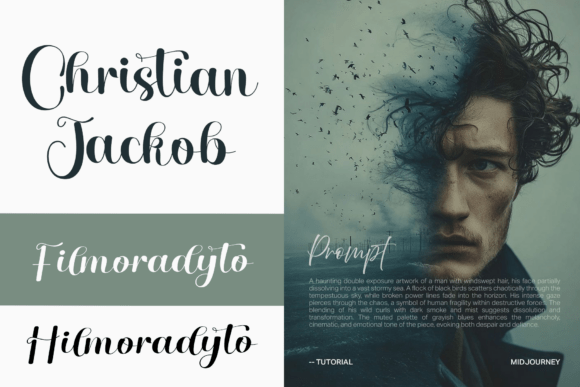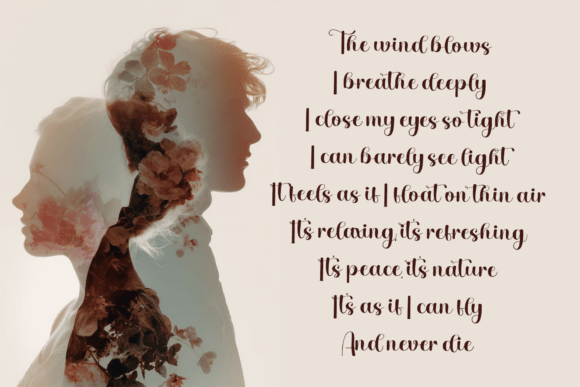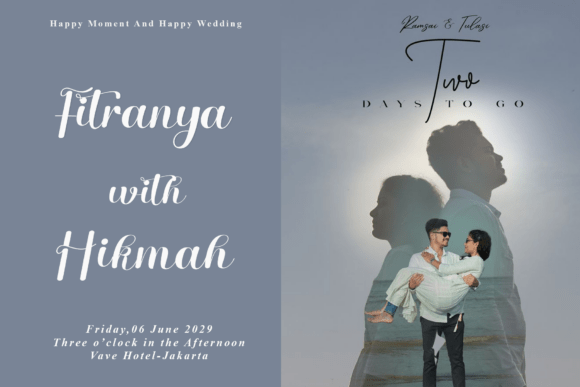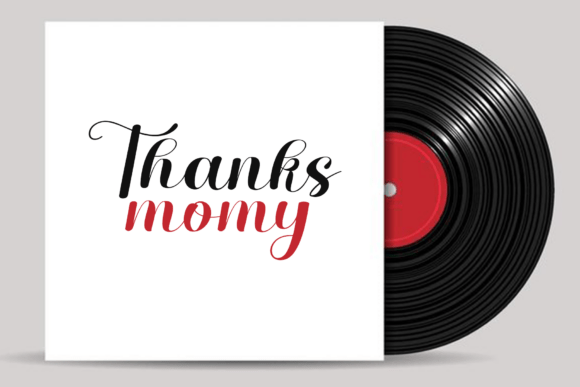
Introduction to Christmas Healing Font
As designers, we’ve all had those moments when we’re searching for the perfect font to elevate our creative project to the next level. Maybe it’s for a wedding invitation that screams luxury, or a branding project that demands sophistication. Whatever the case, finding the right font can be a game-changer. And that’s exactly what the Christmas Healing Font is – a true showstopper that adds a touch of opulent romance to any design.
Imagine wrapping your text in a flowing, calligraphy-style script that features dramatic swashes and a sophisticated rhythm. That’s what the Christmas Healing Font offers – a high-quality, elegant typeface that’s perfect for designs that require a sense of mystery and enchantment. Whether you’re working on a premium liquor label, a high-end wedding invitation, or a feminine branding project, this font is sure to impress.
Unlocking the Magic of Christmas Healing Font
Key Features of Christmas Healing Font
- High-quality design resource for your creative project, perfect for the holiday season.
- Unique and customizable font with a transparent background, allowing for easy integration into your design.
- Designed specifically for Christmas-themed projects, with a warm and festive tone that evokes feelings of healing and joy.
- Includes a range of ligatures and swashes to add a touch of elegance and sophistication to your design.
Honest Review: Christmas Healing Font
I recently stumbled upon the Christmas Healing Font, and I must say it’s a fantastic addition to any creative project. As a designer, I’m always on the lookout for unique and high-quality design resources, and this font delivers.
One of the standout features of this font is its versatility. It comes in a range of styles and weights, making it perfect for a variety of design projects, from greeting cards to social media graphics. The transparent background also makes it easy to customize and layer with other design elements.
Here are some things that work well about the Christmas Healing Font:
- ✨ High-quality design with a unique and festive feel
- ✨ Versatile and easy to customize
- ⚠️ Limited character set, which may not be suitable for longer blocks of text
Overall, I’m impressed with the Christmas Healing Font, and I would definitely recommend it to fellow designers looking for a unique and high-quality design resource. With a little creativity, this font can add a special touch to any project.
Christmas Healing Font
The Christmas Healing Font is a unique and beautiful design resource that can add a personal touch to your creative projects. With its transparent background and high-quality design, this font is perfect for anyone looking to add a special something to their holiday cards, social media posts, or other winter-themed projects.
The Christmas Healing Font is perfect for a variety of creative projects, including:
- Holiday cards and invitations.
- Social media posts and graphics.
- Winter-themed posters and flyers.
- Christmas-themed websites and blogs.